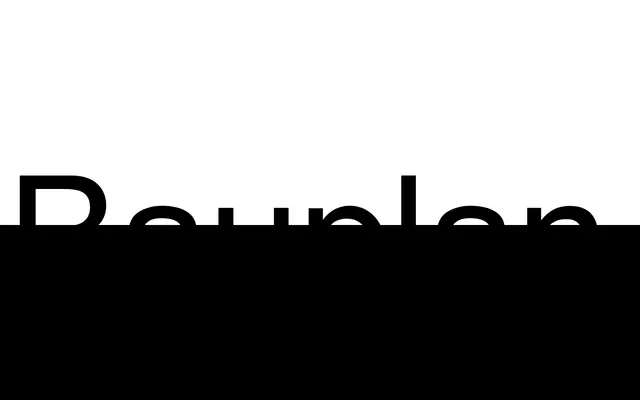
Bauplan
A geometric sans-serif in 14 styles, guided by Futura but redrawn with Setup Type's emphasis on rationality and everyday usability.
Spanning Thin to Black with matching italics, Bauplan keeps low contrast, natural widths and a medium x-height throughout. Two stylistic sets offer alternate forms including a round u and seriffed I and J, extending its range from neutral body text to more characterful display use. Coverage runs to over 100 languages across Basic and Extended Latin, with 457 glyphs including proportional lining figures, superscript, subscript and fractions.
Explicitly described as a geometric sans-serif guided by an interpretation of Futura, with low contrast, natural width and medium x-height — hallmarks of the geometric sans tradition.